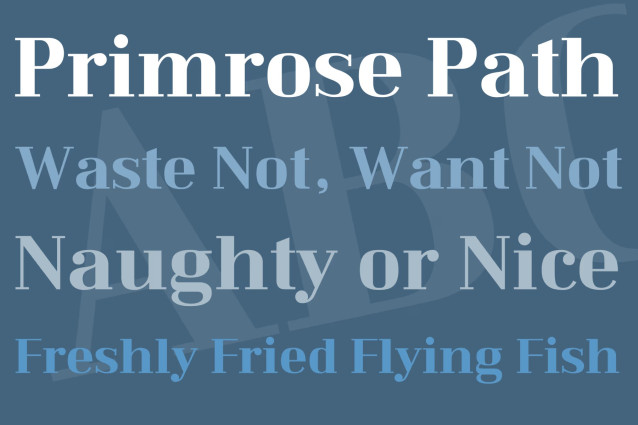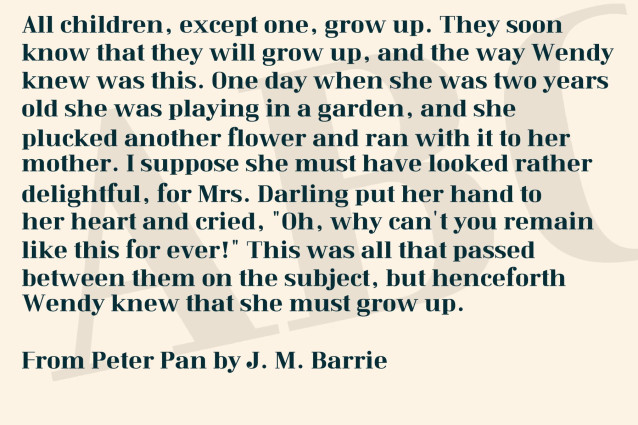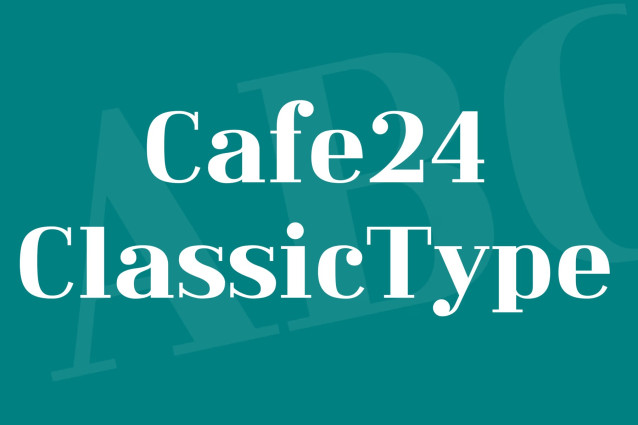
The Cafe24 ClassicType font is a refined serif typeface inspired by early 20th-century typography, particularly the “Century Schoolbook” style. It features a harmonious blend of soft curves and firm vertical strokes, offering a sense of reliability and elegance. Well-suited for titles, brand logos, and editorial headlines, the font conveys a timeless, bookish charm. It supports both Latin and Korean scripts, making it versatile for bilingual branding. The font is freely available under the SIL Open Font License (OFL), allowing use in both personal and commercial projects without restrictions.
Cafe24 ClassicType Font